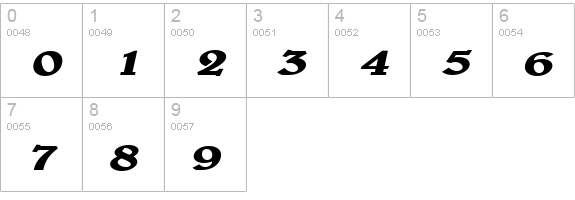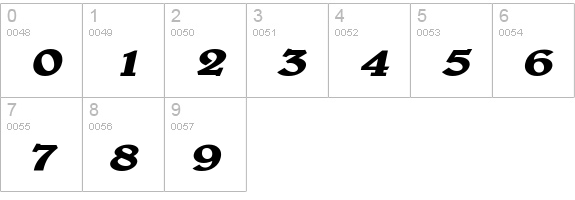
Blew Extended Bold Italic Font Details
Blew Extended Bold Italic is a strong, high-contrast, extended-width, italic variant in the Blew typeface family \xE2\x80\x94 well suited to headlines, attention-grabbing titles, and strong calls-to-action.
Introducing Blew Extended Bold Italic font, a striking and versatile typeface that commands attention with its bold and italicized design. With a sleek and modern look, this font is perfect for making a bold statement in your projects. The Blew Extended Bold Italic font exudes confidence and sophistication, making it ideal for headlines, titles, posters, and other design projects that require a touch of elegance. The best part? Blew Extended Bold Italic font is available for free download at FontsMarket.com. Get your hands on this eye-catching font today and elevate your designs to the next level. Don't miss out on the opportunity to add this stylish and impactful typeface to your collection. Download Blew Extended Bold Italic font now and let your creativity shine!